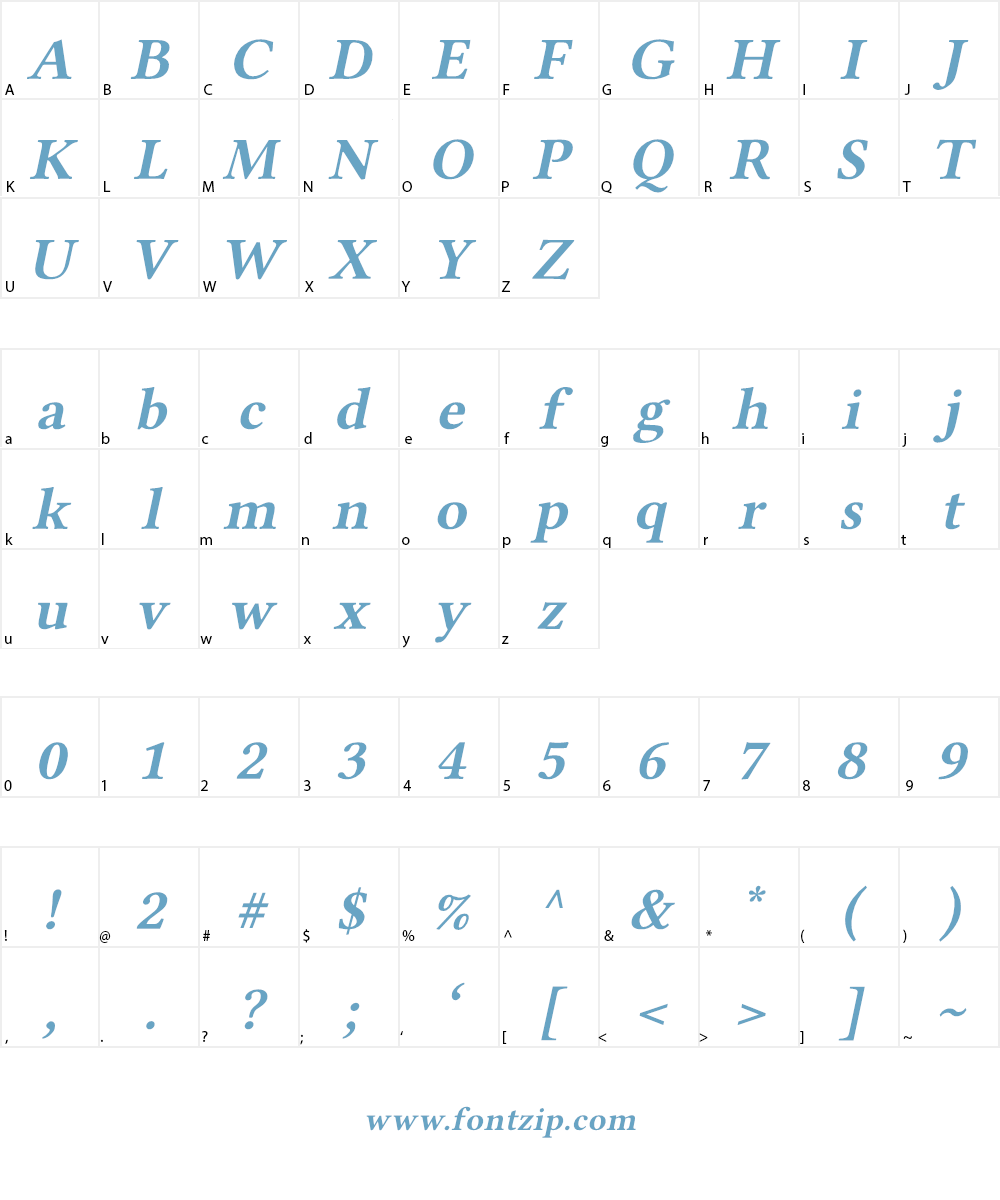
We work on a serif and organic grotesque font-family for practical use in documents.
Our project aims at creating a free alternative to the standard W*ndows Font (T*mes).
But neveretheless Libertine and Biolinum are not a clone of any common font!
They have been developed from scratch and go different ways in typography
than the Times or Arial. Just the useability and the dimensions shall be similar,
Libertine should be even better for typical office use! If you want Times- and
Arial-clones go elsewhere. If you just need reliable and good typography
give our fonts a chance. If you want to know more about the design of